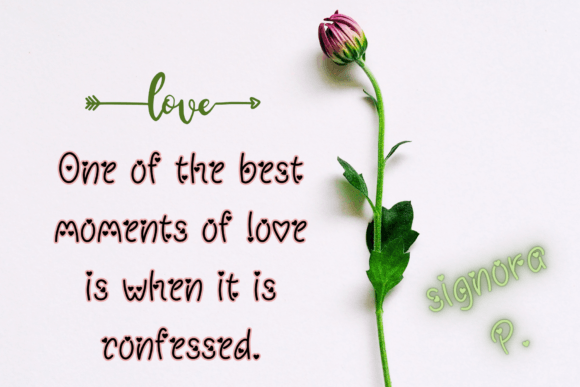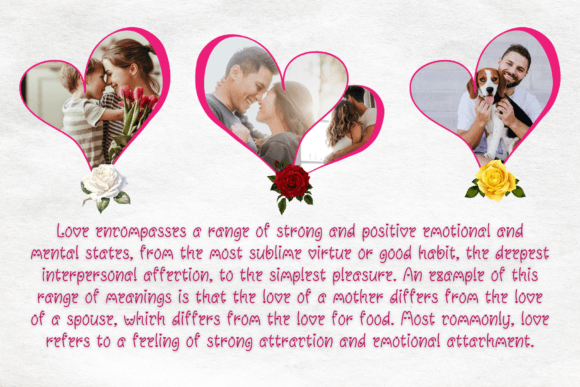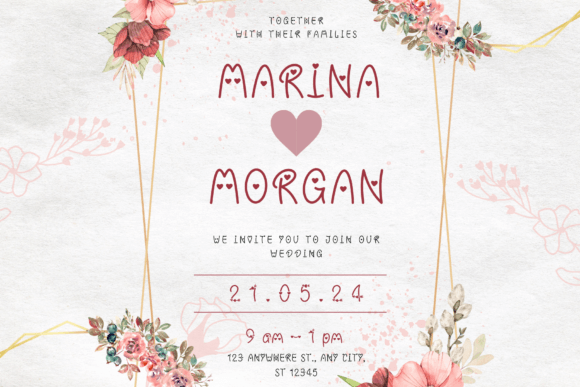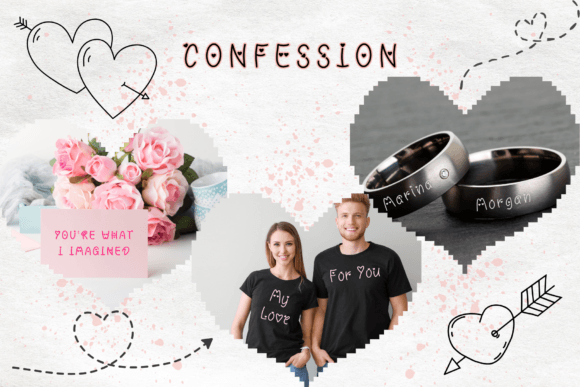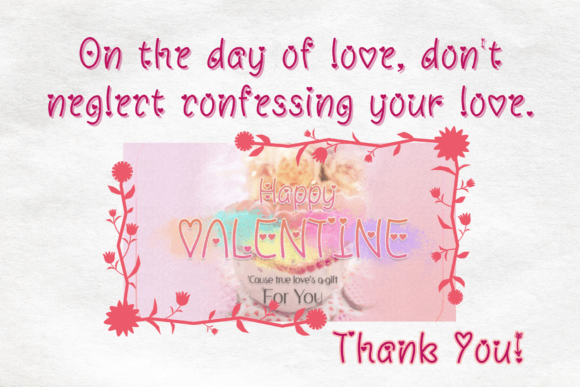
Love in the Air: Unveiling the Be Quiet and Listen 1 to 9 I Love You Font
Have you ever been in a moment where you’re about to confess your love, but your heart is racing, and all you can think of is what to say? The butterflies in your stomach, the nervous smile, and the anticipation of the other person’s reaction – it’s a moment that’s etched in our memories forever. For designers, capturing these emotions in a font that exudes love and affection can be a challenge.
Enter the Be Quiet and Listen 1 to 9 I Love You Font, a delightful creation that’s inspired by love confessions through letters. This charming font is designed to be cute and memorable, making it perfect for notes or cards when you want to confess your love. Its value lies in its ability to convey emotions in a unique and expressive way, making it a valuable addition to any designer’s toolkit.
Key Features of “Be Quiet and Listen 1 to 9 I Love You Font”
- Unique Characteristic: The font features a playful and whimsical design with a series of numbers and phrases that convey a sense of affection and love.
- Font Size: The font is available in a single weight, making it suitable for various design applications.
- Resolution: The font is optimized for use at any resolution, ensuring it remains clear and legible on various devices and screens.
- Font Style: The font features a cursive and handwritten style, adding a touch of personality to any design project.
Designer Review: Be Quiet and Listen 1 to 9 I Love You Font
I recently had the chance to work with the “Be Quiet and Listen 1 to 9 I Love You Font”, and I must say it’s a unique and quirky addition to any design project. ✨ The font’s playful personality shines through in its handwritten style, making it perfect for adding a touch of whimsy to invitations, social media graphics, or even children’s book illustrations.
The font’s versatility is also a major plus. ✨ It’s available in nine different styles, each with its own distinct character. From the casual, laid-back feel of “1” to the more dramatic flair of “9”, there’s a style to suit every design need.
What Doesn’t Quite Work
While the “Be Quiet and Listen 1 to 9 I Love You Font” has its charm, there are a few limitations to keep in mind. ⚠️ For one, the font may not be suitable for formal or professional projects, as its playful vibe may come across as unprofessional. Additionally, some of the styles may be difficult to read in smaller font sizes, which could be a concern for designs that require clear, concise typography.
Overall, I’d say the “Be Quiet and Listen 1 to 9 I Love You Font” is a fun and creative addition to any designer’s toolkit. Just be sure to use it judiciously, and consider the needs of your project before making a final decision.
The “Be Quiet and Listen 1 to 9 I Love You Font” is ideal for:
- Creative projects that require a unique and playful font.